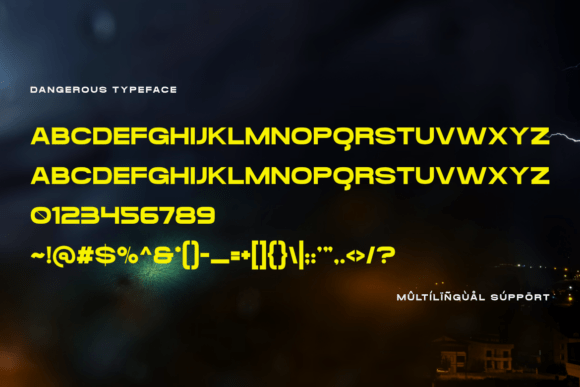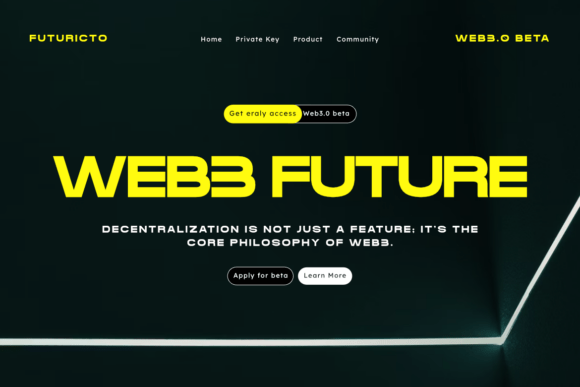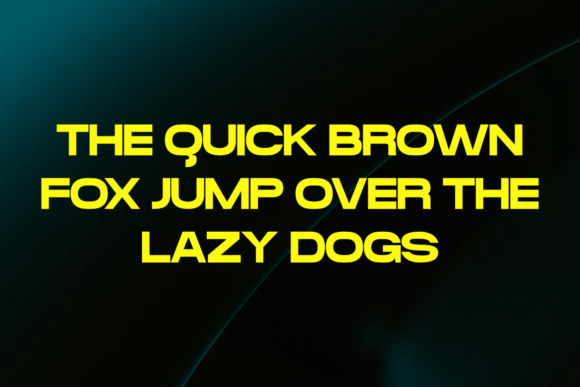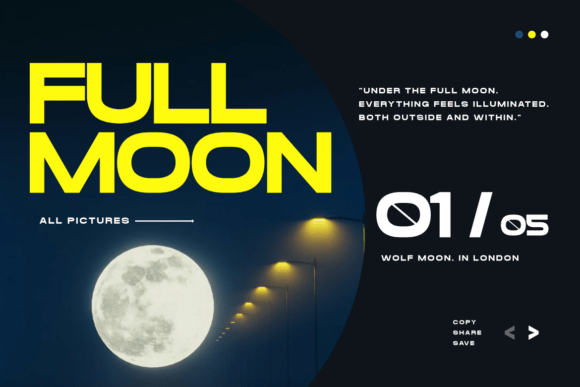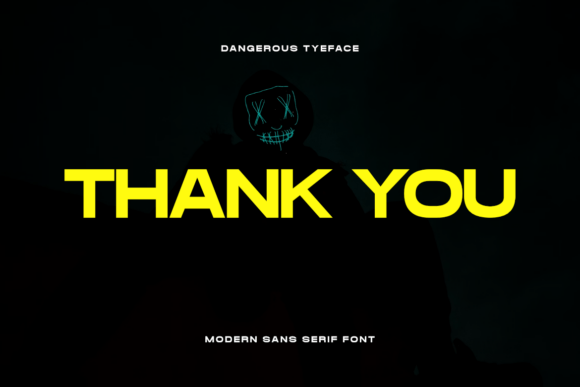
Dangerous Font: The Ultimate Choice for High-Impact Communication
In the world of typography, fonts play a crucial role in conveying messages and making a lasting impression. When it comes to high-visibility and impactful communication, a bold and striking font is essential. This is where the Dangerous font comes into play. Designed as a modern bold sans serif display font, Dangerous is built for high-energy branding, action-oriented headlines, gaming titles, and futuristic poster designs.
The Power of Dangerous Font
Dangerous font is a powerhouse of a typeface, designed to make a statement. Its wide, solid letterforms and clean geometric structure provide an assertive and contemporary aesthetic that is hard to ignore. The font’s bold and modern design ensures that your message stands out with confidence, making it perfect for designers and crafters looking to create a lasting impact.
Key Features of Dangerous Font
- Wide and Solid Letterforms: The font’s wide and solid letterforms provide a strong and assertive presence, making it perfect for high-impact communication.
- Clean Geometric Structure: The font’s clean geometric structure ensures a contemporary and sleek aesthetic that is both professional and unforgettable.
- Versatile Typeface: Dangerous font is a versatile typeface that can be used for a variety of design projects, from high-energy branding to futuristic poster designs.
- Sleek yet Aggressive Look: The font’s design ensures a sleek yet aggressive look that is both professional and unforgettable.
Use Cases for Dangerous Font
Dangerous font is perfect for a variety of design projects, including:
- High-Energy Branding: The font’s bold and modern design makes it perfect for high-energy branding projects that require a strong and assertive presence.
- Action-Oriented Headlines: The font’s wide and solid letterforms make it perfect for action-oriented headlines that require a strong and attention-grabbing presence.
- Gaming Titles: The font’s sleek and aggressive look makes it perfect for gaming titles that require a modern and bold aesthetic.
- Futuristic Poster Designs: The font’s clean geometric structure and bold design make it perfect for futuristic poster designs that require a strong and contemporary aesthetic.
Why Choose Dangerous Font?
There are several reasons why designers and crafters should choose Dangerous font for their design projects:
- High-Impact Communication: The font’s bold and modern design ensures high-impact communication that grabs attention and makes a lasting impression.
- Professional and Unforgettable: The font’s sleek and aggressive look is both professional and unforgettable, making it perfect for designers and crafters who want to create a lasting impact.
- Versatile Typeface: The font’s versatility ensures that it can be used for a variety of design projects, from high-energy branding to futuristic poster designs.
In conclusion, Dangerous font is a powerful and striking typeface that is perfect for high-impact communication. Its bold and modern design, wide and solid letterforms, and clean geometric structure make it perfect for high-energy branding, action-oriented headlines, gaming titles, and futuristic poster designs. With its sleek and aggressive look, Dangerous font is both professional and unforgettable, making it a must-have for designers and crafters looking to create a lasting impact.